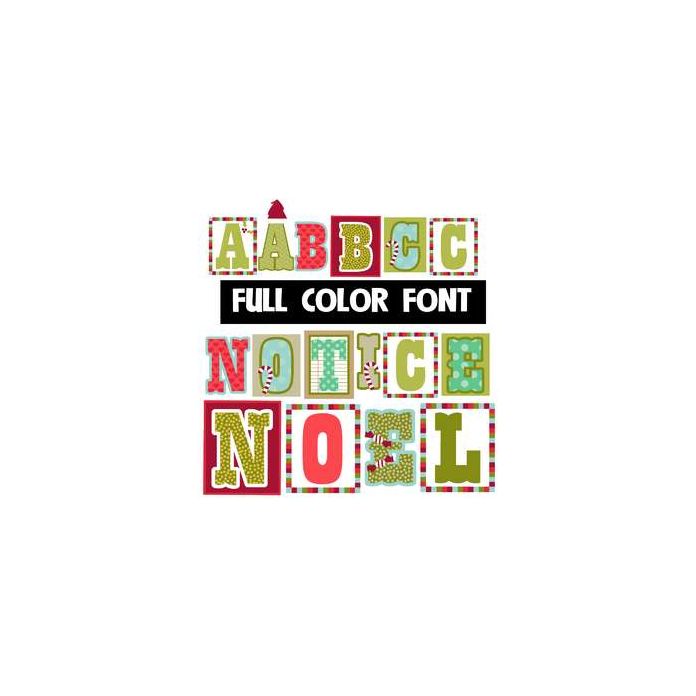
This full-color font features unique and varied fonts in a Christmas palette. This font works best for titles, displays, posters and more. Please note color fonts will show as black in non compatible programs. This font type is compatible with Silhouette Studio.